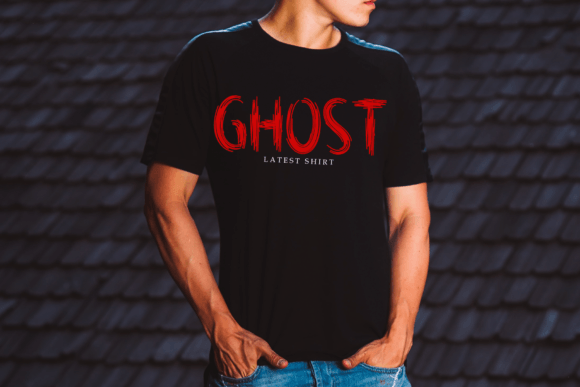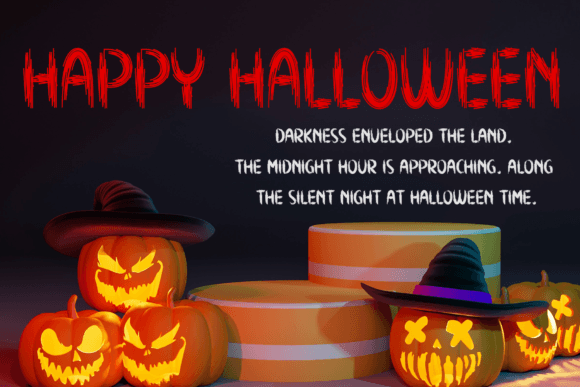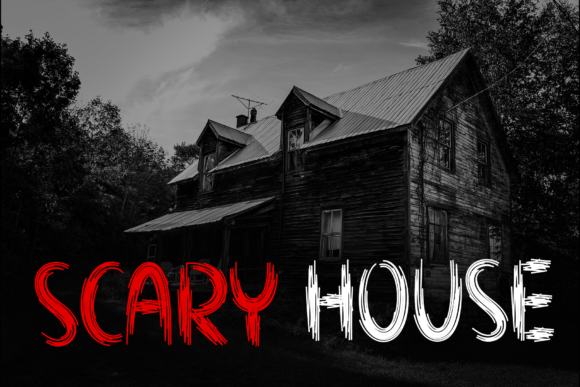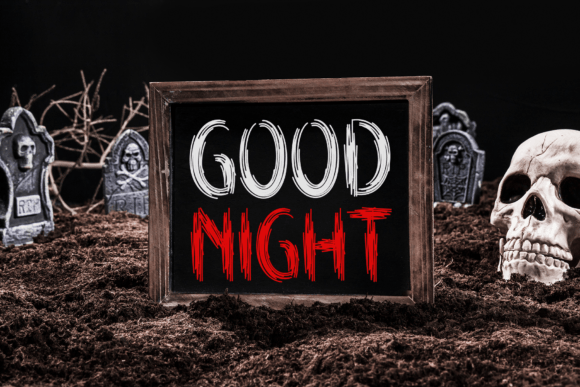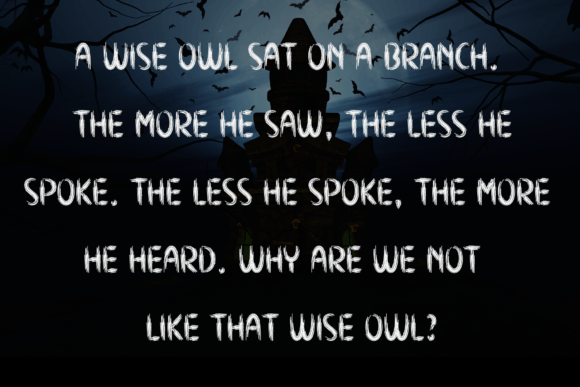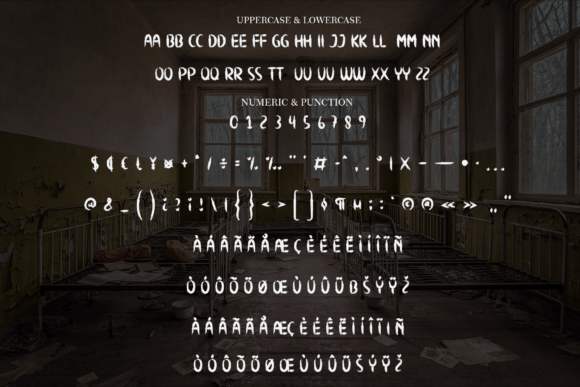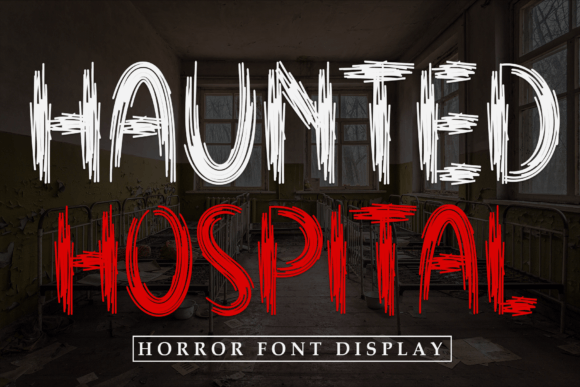
Step into the Shadows with Haunted Hospital Font
As I sat in my darkened studio, surrounded by flickering candles and the eerie silence of the night, I stumbled upon the perfect font to capture the haunting essence of my latest horror project: Haunted Hospital Font. Its distressed and ghostly strokes seemed to leap off the screen, beckoning me to unleash the darkest tales within abandoned hallways.
Haunted Hospital Font is a spine-chilling script font designed to evoke the chilling atmosphere of a haunted medical facility. Whether you’re crafting horror-themed designs, creating haunting invitations, or working on chilling projects, this font is sure to send shivers down your spine. For designers, Haunted Hospital Font offers a unique opportunity to tap into the darker side of creativity, adding an unparalleled level of depth and atmosphere to your work.
With Haunted Hospital Font, the possibilities are endless, and the terror is real.
Haunted Hospital Font Key Features
• Font Family: Haunted Hospital Font is a unique, hand-drawn font designed to resemble old hospital signs and medical records.
• Unique Characteristics: The font features distressed textures, worn edges, and subtle imperfections, giving it a worn, aged look that’s perfect for horror-themed designs, medical or healthcare-related projects, or any design that requires a vintage, distressed aesthetic.
• Font Style: The font comes in two styles: Regular and Bold, providing designers with a range of options to suit their design needs.
Designer Review: Haunted Hospital Font
Overall, I’d say the Haunted Hospital Font is a unique and attention-grabbing addition to any project, especially those with a spooky or horror theme.
• ✨ Distinctive and creepy aesthetic that sets it apart from more common fonts
• ✨ Effective for use in titles, headings, and other prominent text elements
• ✨ Can add a touch of eeriness and tension to a design
However, I do have some reservations:
• ⚠️ Readability can be a concern, especially at smaller font sizes
• ⚠️ May not be suitable for large blocks of text, as it can become overwhelming
• ⚠️ Limited character set and language support may be a issue for some users
Overall, I think the Haunted Hospital Font is a great choice for designers looking to add some edge and personality to their projects. Just be mindful of its limitations and use it judiciously to avoid overwhelming your audience.
The Haunted Hospital Font is ideal for creating spooky or eerie designs, such as:
• Haunted house invitations
• Spooky movie posters
• Creepy social media graphics
Remember to use the font in moderation to avoid overwhelming your design. Experiment with different font sizes, colors, and styles to create a unique and captivating visual effect.